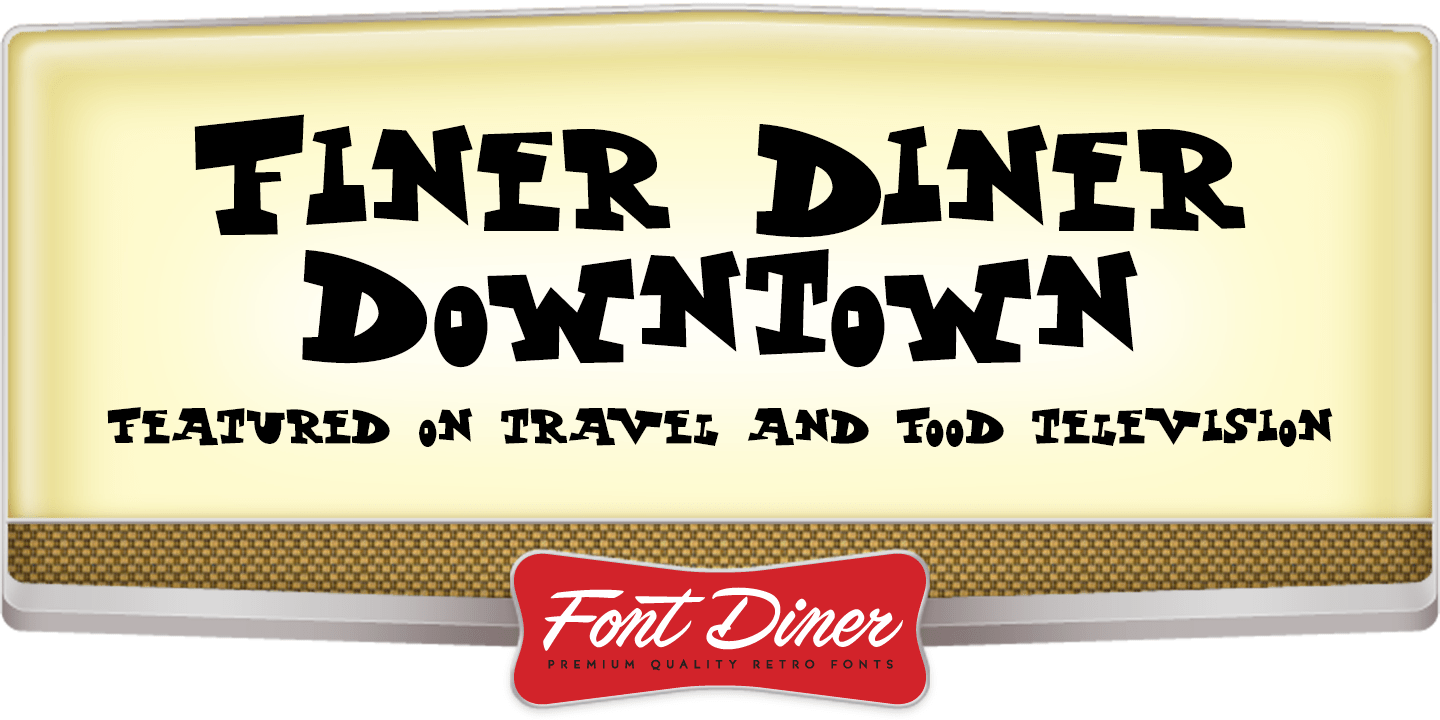
HomeFunWackyFiner Diner Downtown Wacky Finer Diner Downtown FacebookXPinterestWhatsApp 1 of 1 About Finer Diner Downtown Head into the hard of Downtown when you\’re looking for something smooth and metropolitan with our Finer Diner Downtown bold and bouncy serif font.  DOWNLOAD NOW People also explored Happiness Font Hi Virginia Font At Home Font Kahittna Font Memories in September Font Eggnog Font The Carolisa Font Rising Winter Font Teacher Font 262 0 TagsFiner Diner Downtown Font Previous articleImagistNext articleScotch Modern LEAVE A REPLY Cancel reply Comment: Please enter your comment! Name:* Please enter your name here Email:* You have entered an incorrect email address! Please enter your email address here Website: Save my name, email, and website in this browser for the next time I comment. Personal Use Free Milda Personal Use Free Read more about this font Amelline Personal Use Free Read more about this font Makcex Personal Use Free Read more about this font Lynoselt Personal Use Free Read more about this font BLOG Fonts That Capture the Spirit of New York City New York City is more than just a place—it’s an experience, a rhythm, a visual language... Modern Sans-Serif Fonts That Brands Love in 2025 Top 10 Handwritten Fonts That Elevate Your Designs Transform Your Website: Elevate Your Typography with 7 Best Web Font Generators